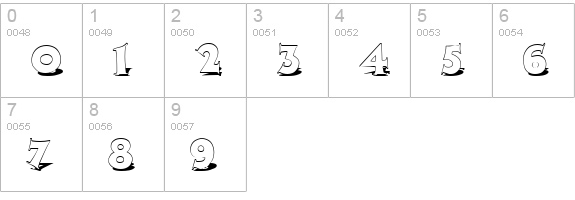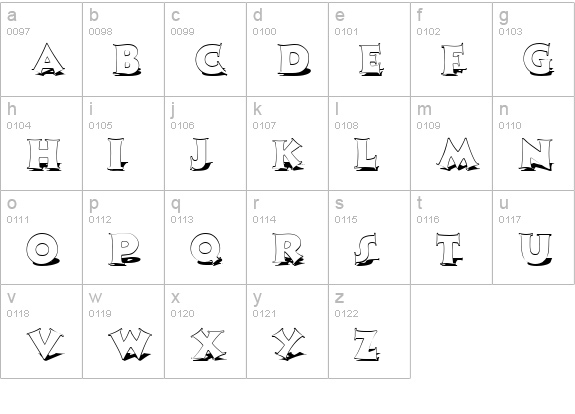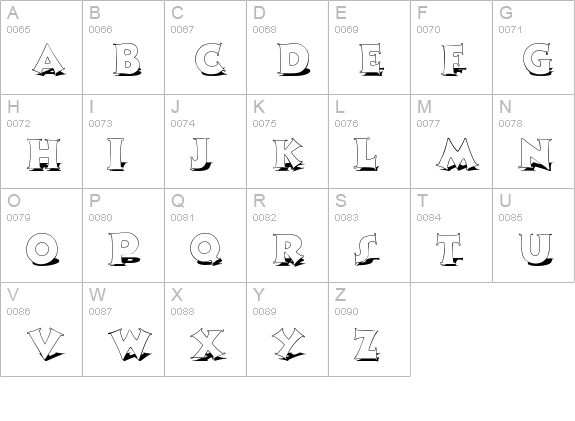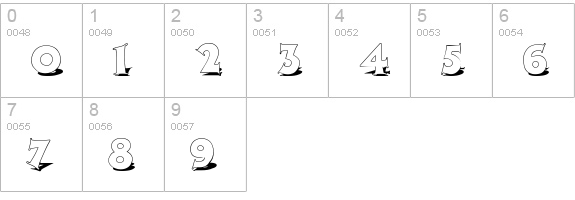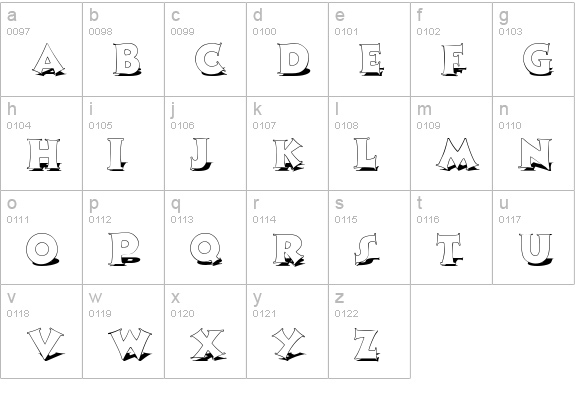
MonophonShadow Font Details
MonophonShadow font is a modern and stylish typeface that exudes sophistication and elegance. Its sleek lines and unique shadow effect make it perfect for a variety of design projects, from branding to editorial design. The font strikes the perfect balance between classic and contemporary, making it versatile for both print and digital applications. Best of all, MonophonShadow is available for free download at FontsMarket.com. This means you can easily access this high-quality font without any cost, making it a valuable addition to your font collection. Whether you're a professional designer or a casual enthusiast, MonophonShadow offers a creative and stylish solution for your typography needs. Elevate your designs with MonophonShadow today!